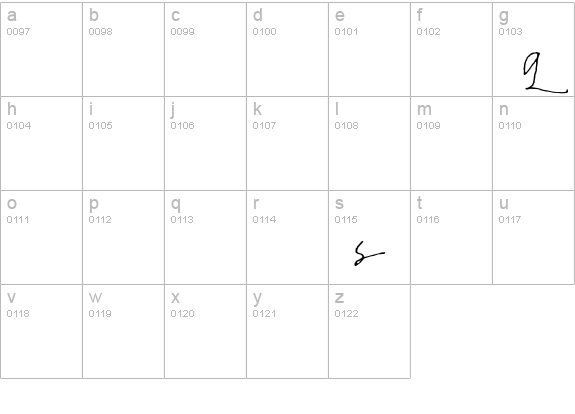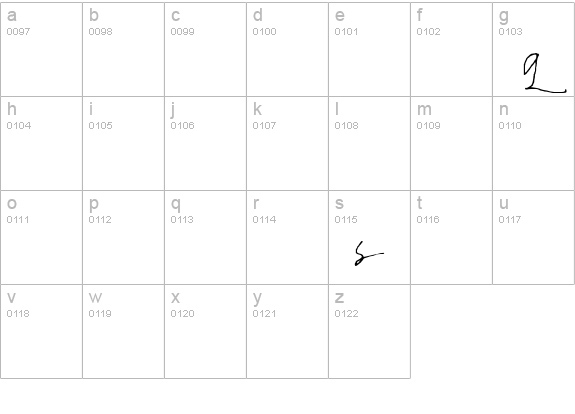
Russell Oblique Informal Alternates Font Details
Russell Oblique Informal Alternates is a distinctive, italic variant in the Russell typeface family \xE2\x80\x94 well suited to design and typography projects.
Russell Oblique Informal Alternates font is a charming and versatile typeface that adds a touch of playfulness to any design. With its quirky and unique letterforms, this font is perfect for projects that require a casual and informal aesthetic. The alternative characters included in the font set allow for even more customization and creativity in your designs. Best of all, Russell Oblique Informal Alternates font is available for free download at FontsMarket.com. Whether you're working on a poster, logo, or social media graphic, this font will bring a fresh and modern look to your projects. Embrace the whimsical vibe of Russell Oblique Informal Alternates font and let your creativity shine!